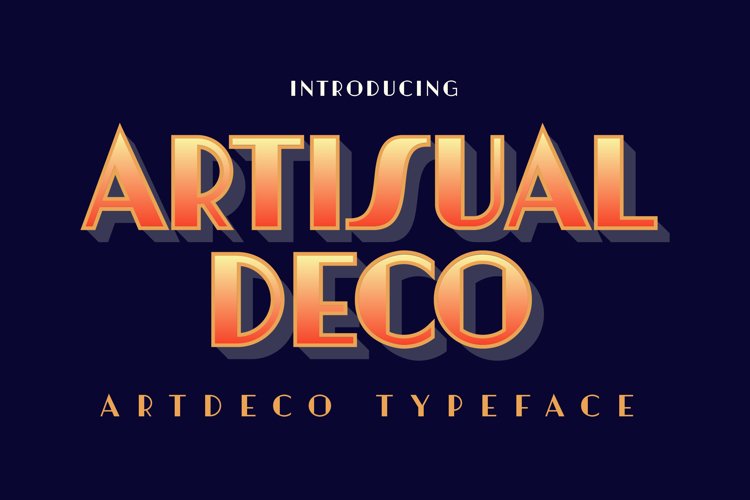
Well hello people! This is my new typeface Artisual Deco inspired by Art Deco style from 1920s perfect for branding projects, headlines, posters and packaging! This font family is available with 3 versions you can see it right here!